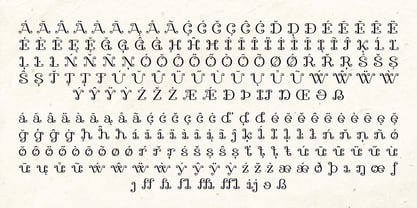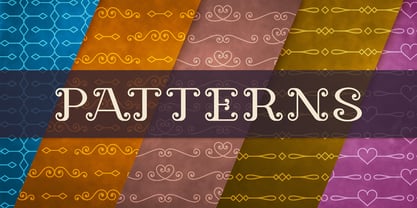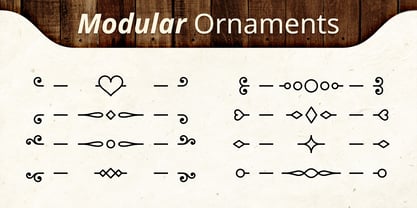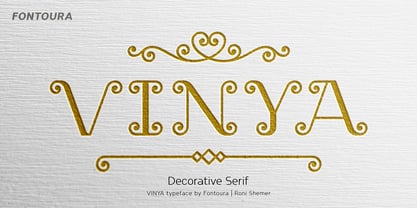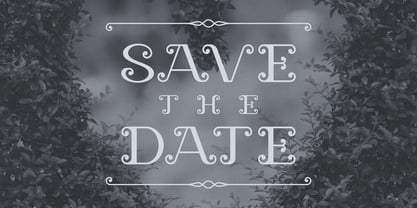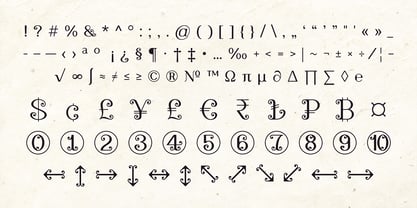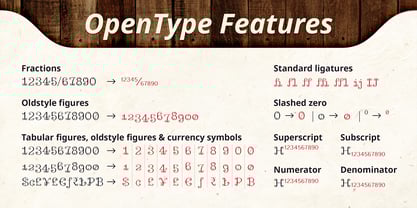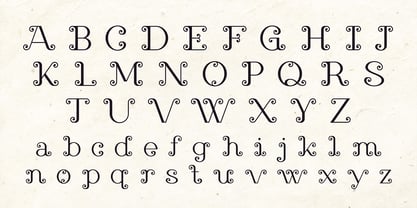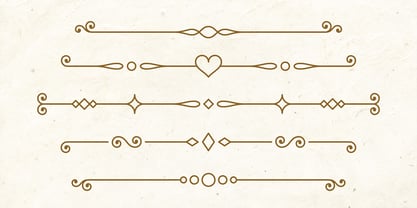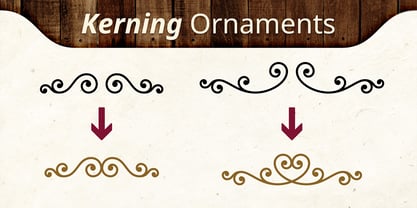
Vinya
La familia tipográfica Vinya fue diseñada por Roni Shemer y publicada por Fontoura. Vinya contiene 4 estilos y opciones de paquete familiar. Más información sobre esta familia
VINYA is an elegant decorative serif inspired by winding vines and ornamental lettering. Its graceful curves and delicate curls evoke a sense of craftsmanship, romance, and timeless beauty. Each letter features subtle vine-like flourishes that add character and make the font both expressive and refined. With its classic proportions and organic details, VINYA feels equally at home in vintage-inspired designs and modern luxury branding. It is ideal for wine labels, boutique logos, editorial headlines, invitations, packaging, and any project that calls for warmth, sophistication, and a touch of artistry. VINYA blends tradition and elegance into a distinctive typeface that feels rooted, natural, and memorable. Modular Ornament Glyphs This font includes a system of modular decorative glyphs designed to be combined into a wide range of ornamental compositions. The glyphs are drawn with consistent proportions, stroke weight, and connection logic, allowing them to align seamlessly when placed next to one another. By combining different glyphs, you can construct a wide range of custom ornaments, borders, dividers, patterns and decorative compositions (All the decorations in the pictures were created using these glyphs). Kerning ornaments - some ornament combinations are achieved through kerning-based alignment: by adjusting spacing between specific glyphs, elements connect and form continuous decorative shapes (See example in pictures). All ornaments are implemented as font glyphs, making them fully scalable and usable in any design software that supports standard font features.